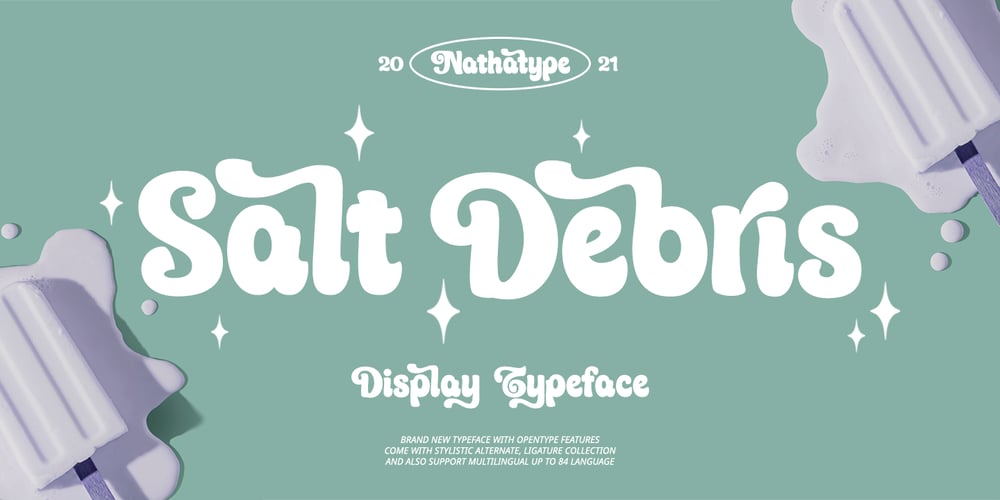
Salt Debris Font Family was designed by Donis Miftahudin and published by Nathatype. Salt Debris contains 1 styles and family package options. Are you ready to enhance you branding? Are you looking for a statement font that exudes prominence, style, and adventure? What if we told you, you only need to change one element to engage and convert your clients? Salt Debrish-A Display FontSalt Debrish is a display font designed to bring your branding to life and add a touch of elegance, cheerful, and style. We are hoping that through this playful font, you can maximize your designs! In turn, you’ll communicate the perfect idea to your audiences or clients. The best choice for branding projects, book/magazine cover, fashion designs, quotes, packaging, or even as a stylish text overlay to any background image. Our font always includes Multilingual Support to make your branding reach a global audience. Features:- Ligatures- Stylistic Sets- Swashes- PUA Encoded- Numerals and PunctuationThank you for downloading premium fonts from Nathatype